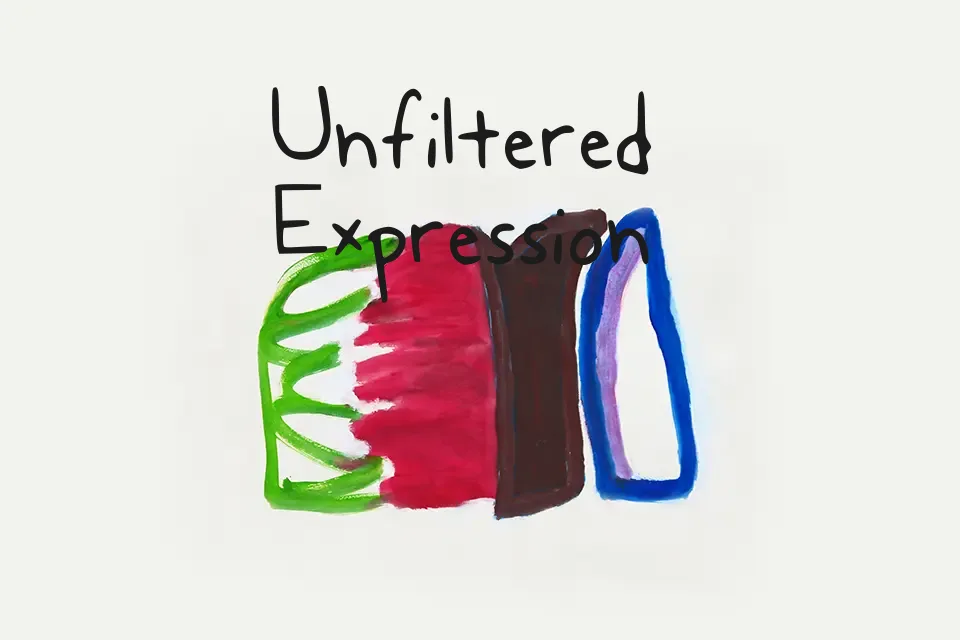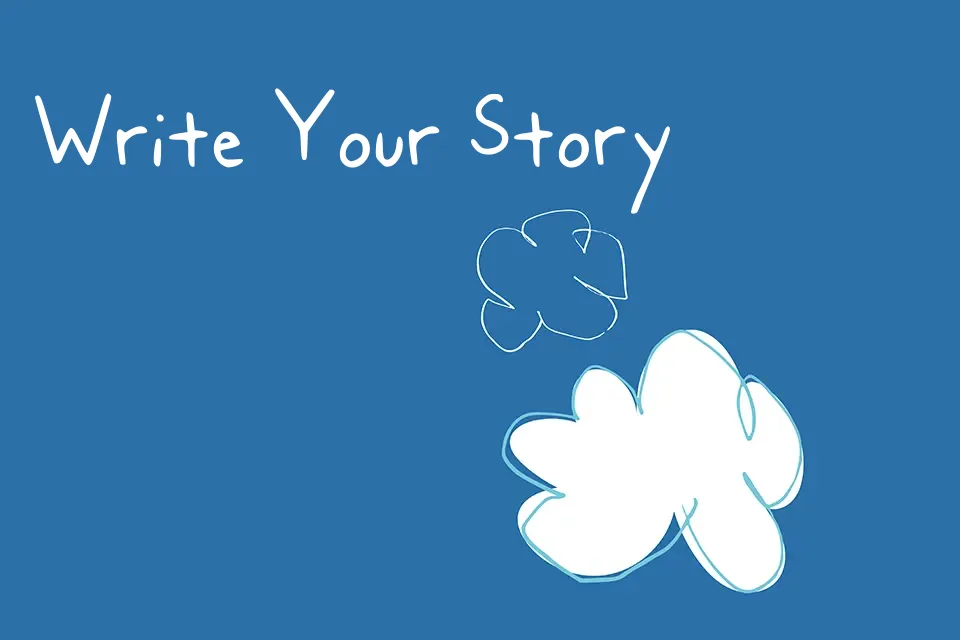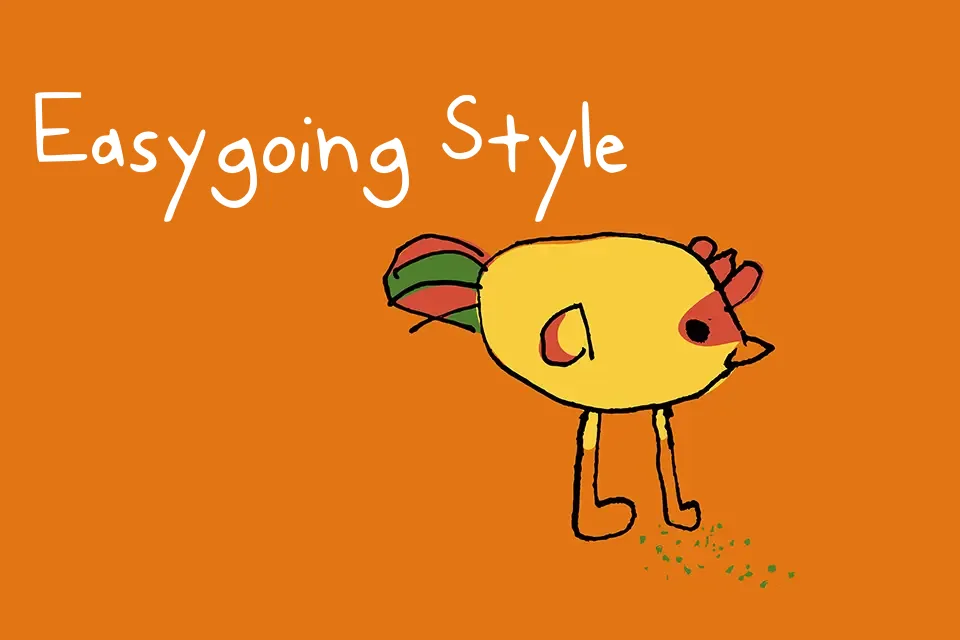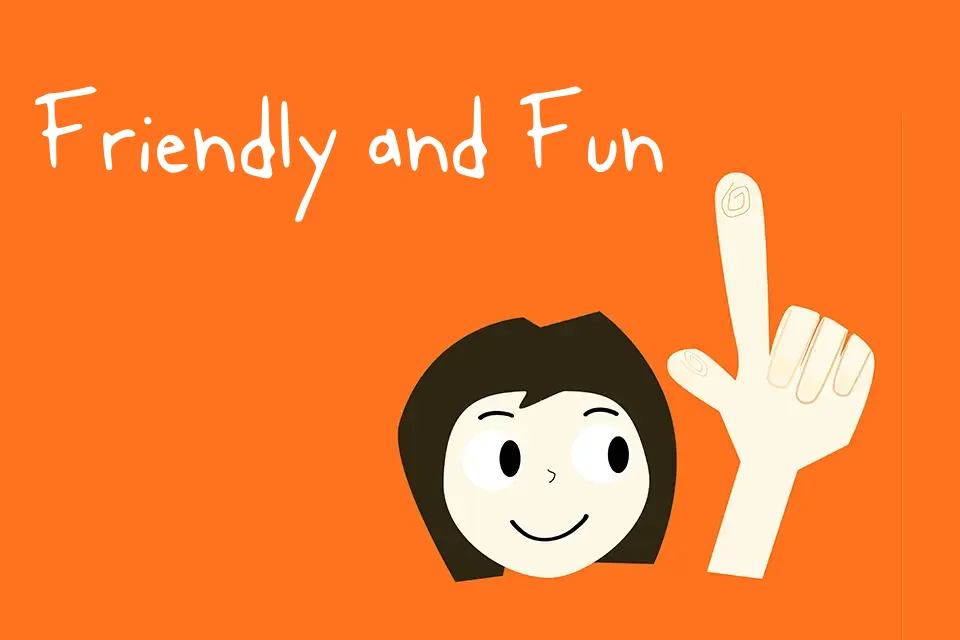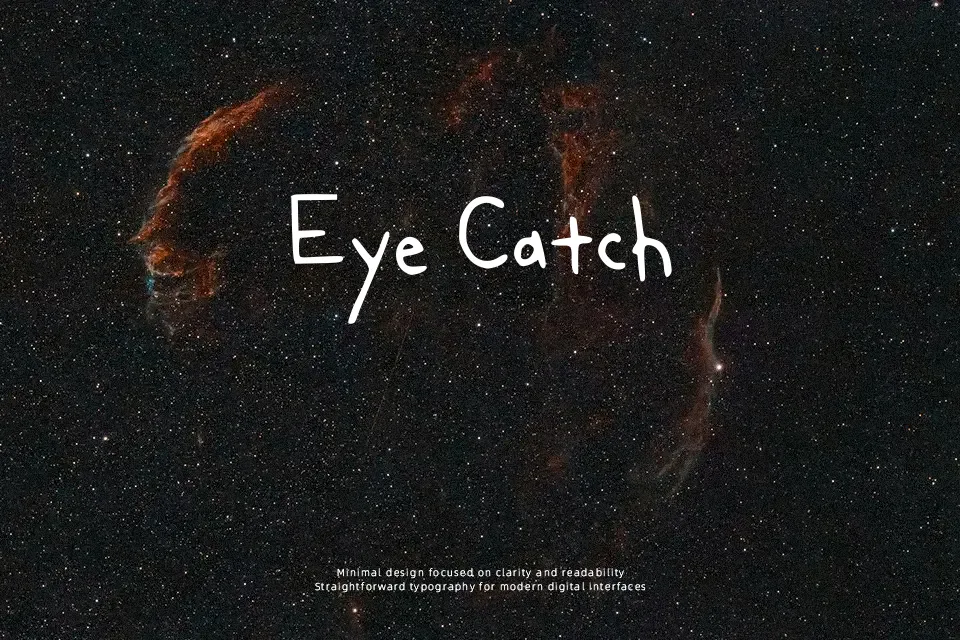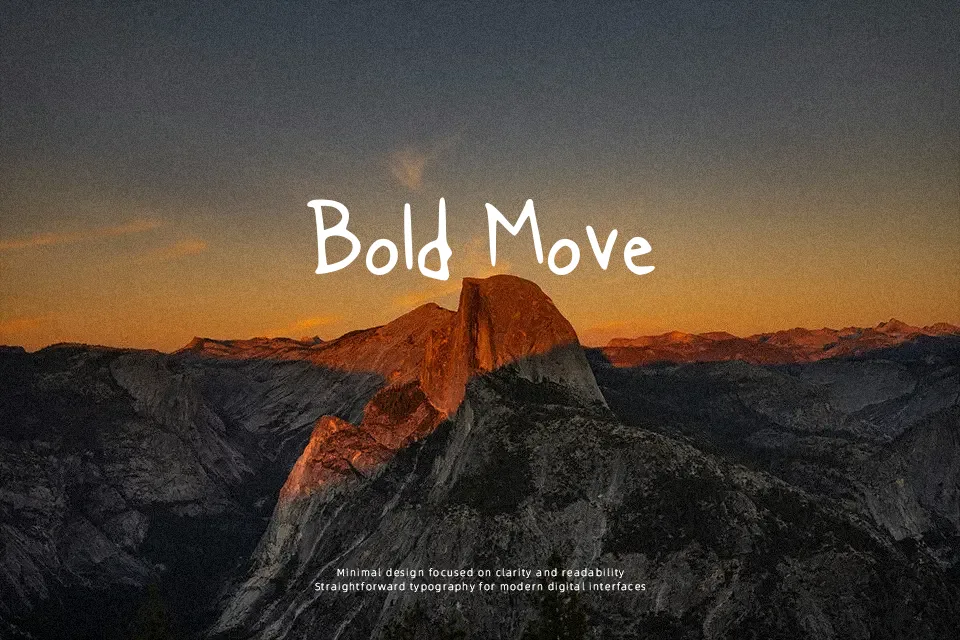
Diary Of A Wimpy Kid Font
Designed by unknown
Reviewing the Diary Of A Wimpy Kid font reveals a deliberate embrace of imperfection. The letterforms are highly irregular, featuring uneven baselines, inconsistent stroke weights, and slightly slanted vertical lines. This faithfully recreates the look of Jeff Kinney’s original book lettering—a casual, sketched aesthetic that feels like it was drawn quickly with a felt-tip pen in a notebook. It is a highly effective choice for illustrating web comics, formatting children’s storybooks, or creating playful, youthful greeting cards. However, the intentional “messiness” that makes it so charming is also its biggest flaw. The font looks entirely out of place in serious contexts, and the irregular spacing makes lengthy paragraphs difficult to scan. It should be strictly limited to informal display text or short dialogue bubbles where its childish personality is appropriate.
children’s book dialogue
playful greeting cards
comic strip lettering
professional corporate websites
formal event invitations
dense editorial body copy
Perfect for kids, packaging, and poster, with a creative and cartoon style.